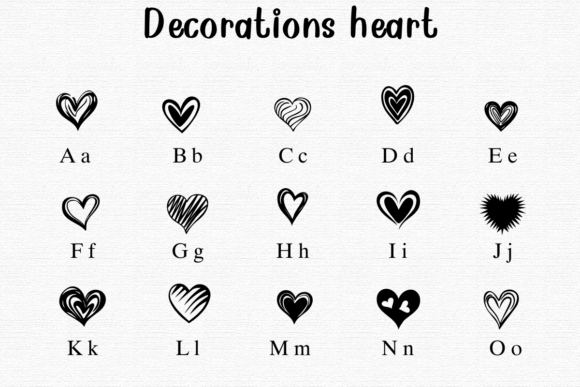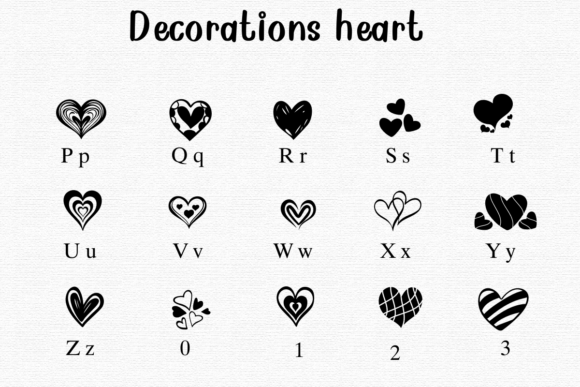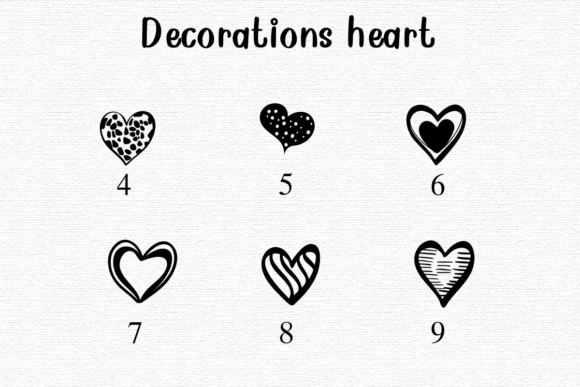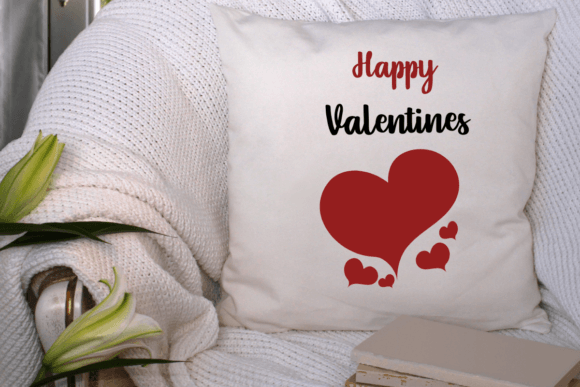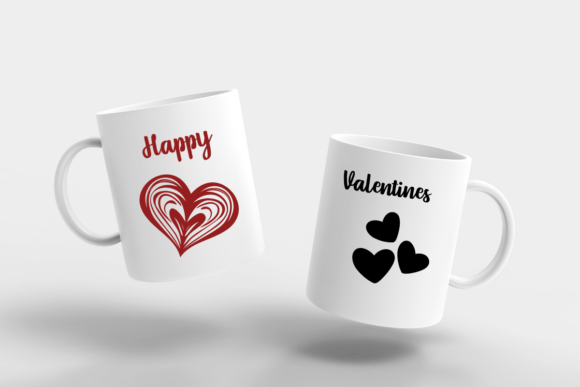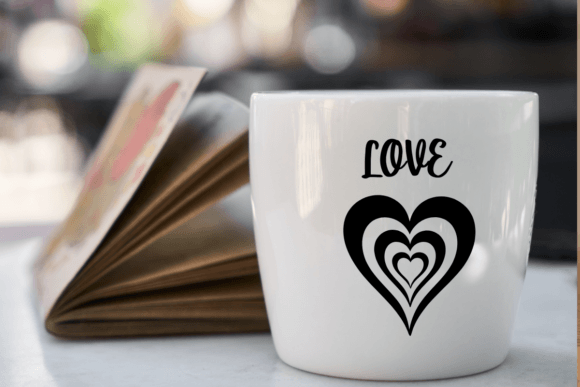
Decorations Heart Font: Add a Touch of Love to Your Designs
Are you looking for a unique and creative way to add a touch of love to your designs? Look no further than the Decorations Heart Font, a dingbat font featuring a variety of heart designs that are sure to capture the hearts of your audience. In this article, we’ll take a closer look at this beautiful font and explore its many uses in design and crafting.
What is Decorations Heart Font?
Decorations Heart Font is a dingbat font that features a collection of heart designs, each with its own unique pattern and style. The font is perfect for designers, crafters, and anyone looking to add a touch of whimsy and romance to their projects. With its wide range of heart designs, Decorations Heart Font is ideal for use in a variety of applications, from Valentine’s Day cards and decorations to wedding invitations and other romantic designs.
Key Features of Decorations Heart Font
- Variety of Heart Designs: Decorations Heart Font features a wide range of heart designs, each with its own unique pattern and style.
- Unique Patterns: The font includes a variety of patterns, from simple and elegant to intricate and ornate.
- Scalable: The font is scalable, allowing you to use it in a variety of projects, from small crafts to large-scale designs.
Uses for Decorations Heart Font
Decorations Heart Font is a versatile font that can be used in a variety of projects, including:
- Valentine’s Day Cards and Decorations: Add a touch of love to your Valentine’s Day cards and decorations with the heart designs in Decorations Heart Font.
- Wedding Invitations: Use Decorations Heart Font to add a romantic touch to your wedding invitations and wedding stationery.
- Crafting: Decorations Heart Font is perfect for crafters, who can use it to add a personal touch to their projects, such as scrapbooking, card making, and other paper crafts.
- Graphic Design: The font is also ideal for graphic designers, who can use it to add a creative touch to their designs, such as logos, icons, and other graphic elements.
Tips for Using Decorations Heart Font
Here are a few tips for using Decorations Heart Font in your projects:
- Experiment with Different Sizes: Try using the font in different sizes to see how it looks in various applications.
- Combine with Other Fonts: Combine Decorations Heart Font with other fonts to create a unique and interesting design.
- Use in Combination with Images: Use the font in combination with images, such as photographs or illustrations, to add a creative touch to your designs.
Decorations Heart Font is a beautiful and versatile font that is perfect for designers, crafters, and anyone looking to add a touch of love to their projects. With its wide range of heart designs and unique patterns, it’s ideal for use in a variety of applications, from Valentine’s Day cards and decorations to wedding invitations and other romantic designs. Whether you’re a seasoned designer or a crafty hobbyist, Decorations Heart Font is sure to capture your heart and inspire your creativity.